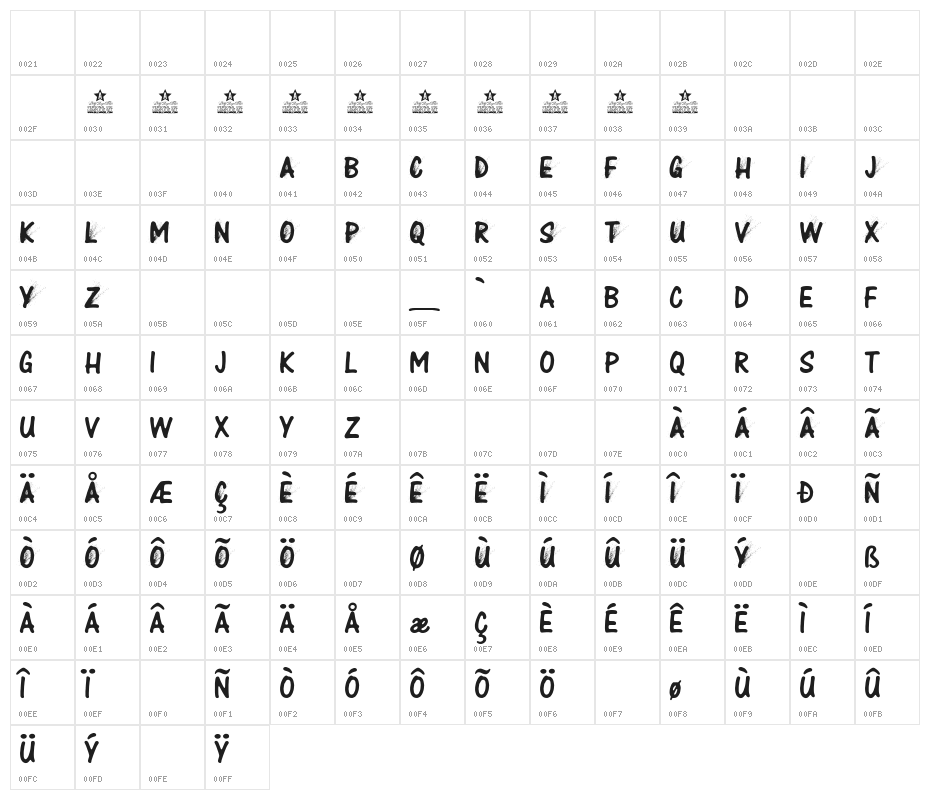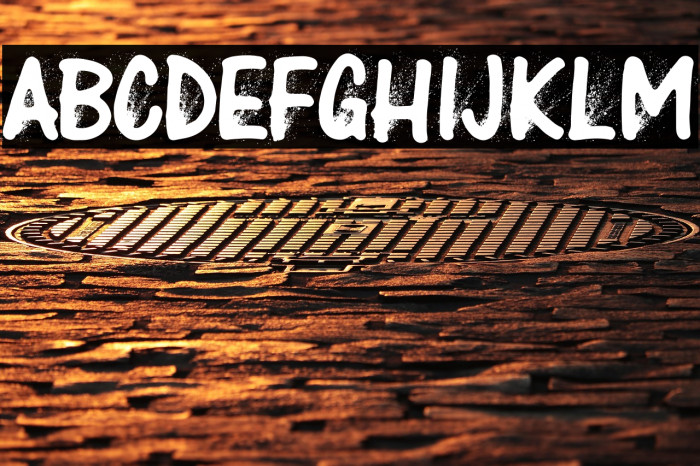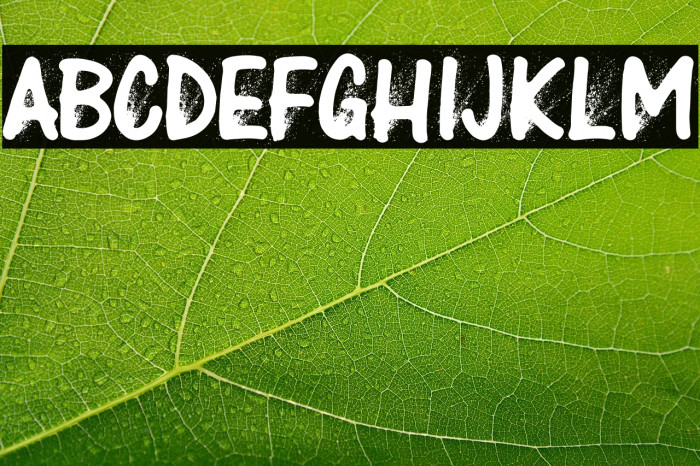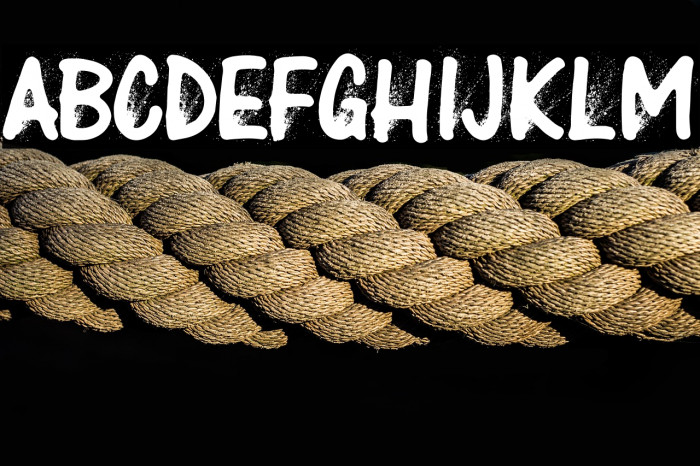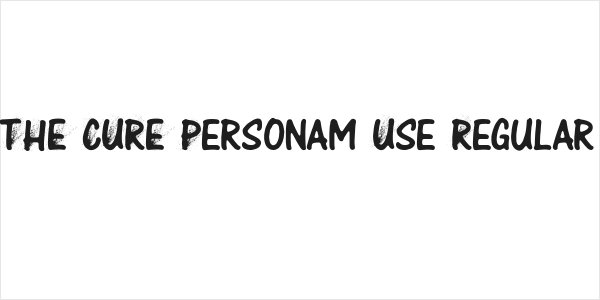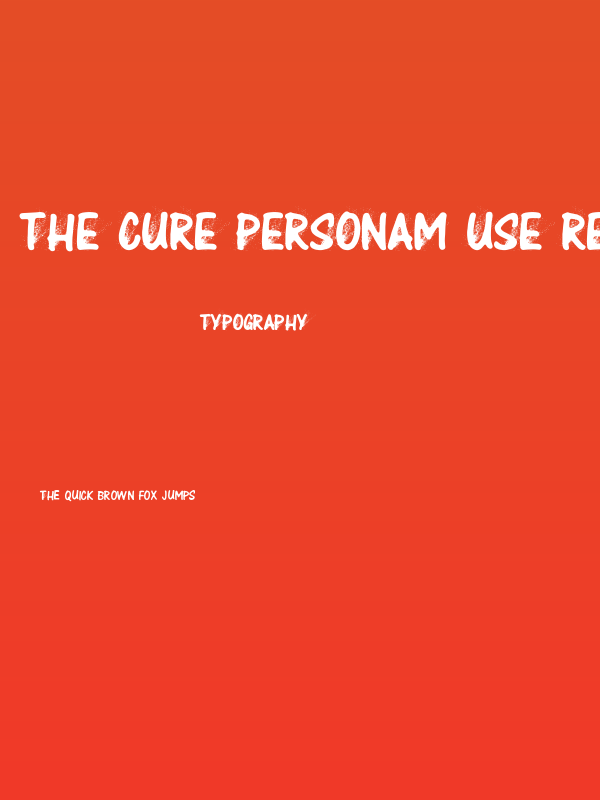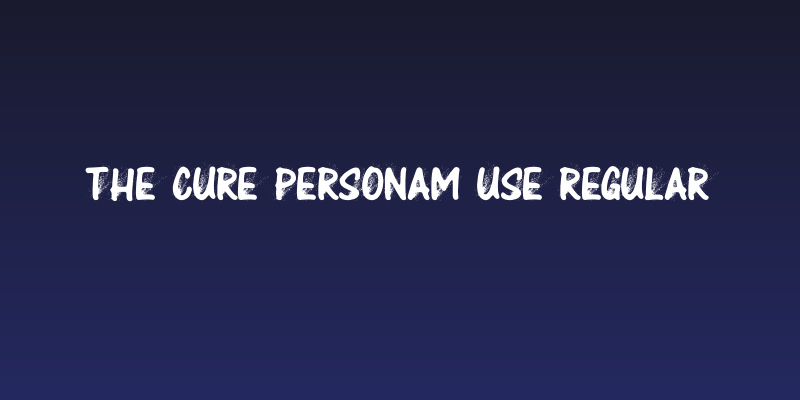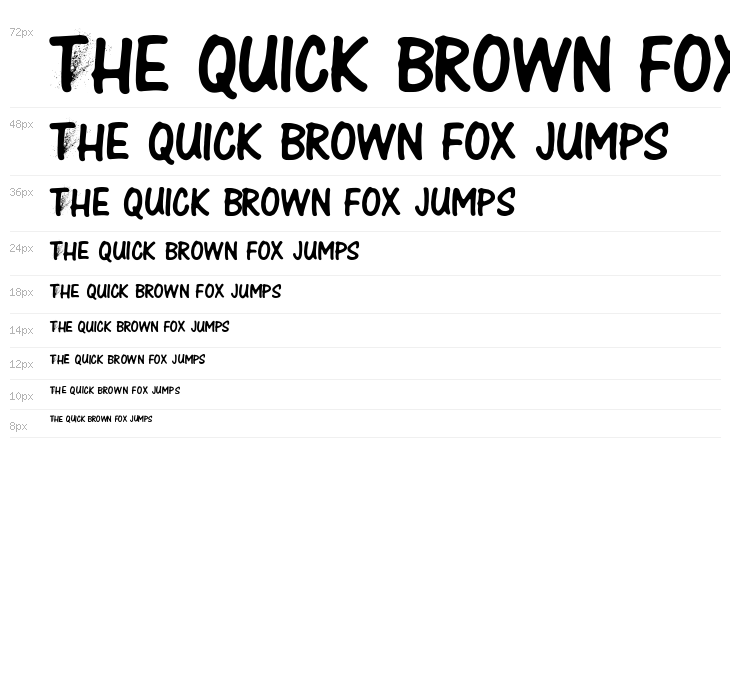
THE CURE Personam Use Regular Font
THE CURE Personam Use Regular Description
This font features a bold, hand-drawn style with a textured, grunge effect. The uppercase letters are prominent and slightly irregular, giving a casual and artistic feel. The strokes are thick and uneven, contributing to its distinctive, rugged appearance. The font's unique texture adds a sense of depth and character, making it stand out in creative projects. Its playful yet edgy design is suitable for eye-catching headlines and artistic expressions. The overall style is both modern and vintage, appealing to a wide range of design aesthetics.
| Overall Style | Modern, Vintage |
| Proposed Projects | Ideal for posters, album covers, branding, and creative design projects. |